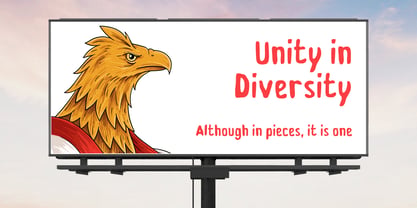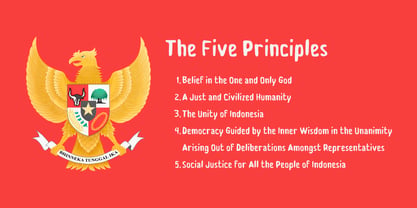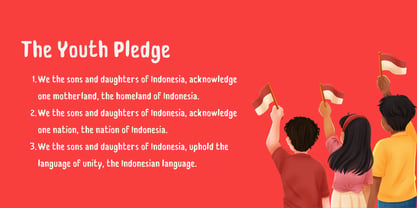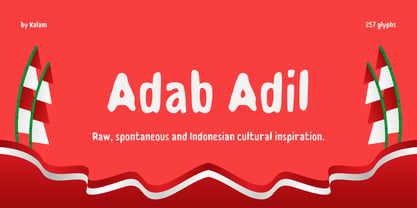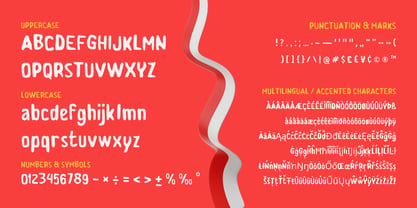
Adab Adil
Adab Adil is a raw, spontaneous, and unapologetically soulful handwritten display typeface rooted in the authentic visual landscape of grassroots Indonesia. Directly inspired by vernacular street signage, hand-painted community announcements, the monumental stone-carved lettering of Monumen Pancasila, and the nostalgic public boards of the 10 Program Pokok PKK, this font captures the genuine pulse of local civic culture.
Departing from polished digital perfection, Adab Adil embraces human irregularity, uneven baseline rhythms, and bold, expressive strokes. It carries the spirit of civic values, collective identity, and everyday street wisdom—delivering an unpolished, honest charm packed with cultural soul and tactile nostalgia.
Recommended Design Uses
• Retro & Vernacular Branding: Local coffee shops, street food packaging, indie distro labels, and community merchandise.
• Poster & Protest Art: Movement posters, indie gig flyers, zines, cultural events, and grassroots community campaigns.
• Apparel & Streetwear: Bold screen-printed graphics, raw typography tees, tote bags, and enamel patches.
• Editorial & Title Design: Book covers, documentary title cards, YouTube thumbnails, and chapter headers needing genuine cultural texture.
Typographic Pairing
Pair Adab Adil with a clean, neutral grotesque sans-serif (such as Work Sans or Roboto) for clean body copy contrast, or with a distressed typewriter font to complete a gritty, documentary-style aesthetic.